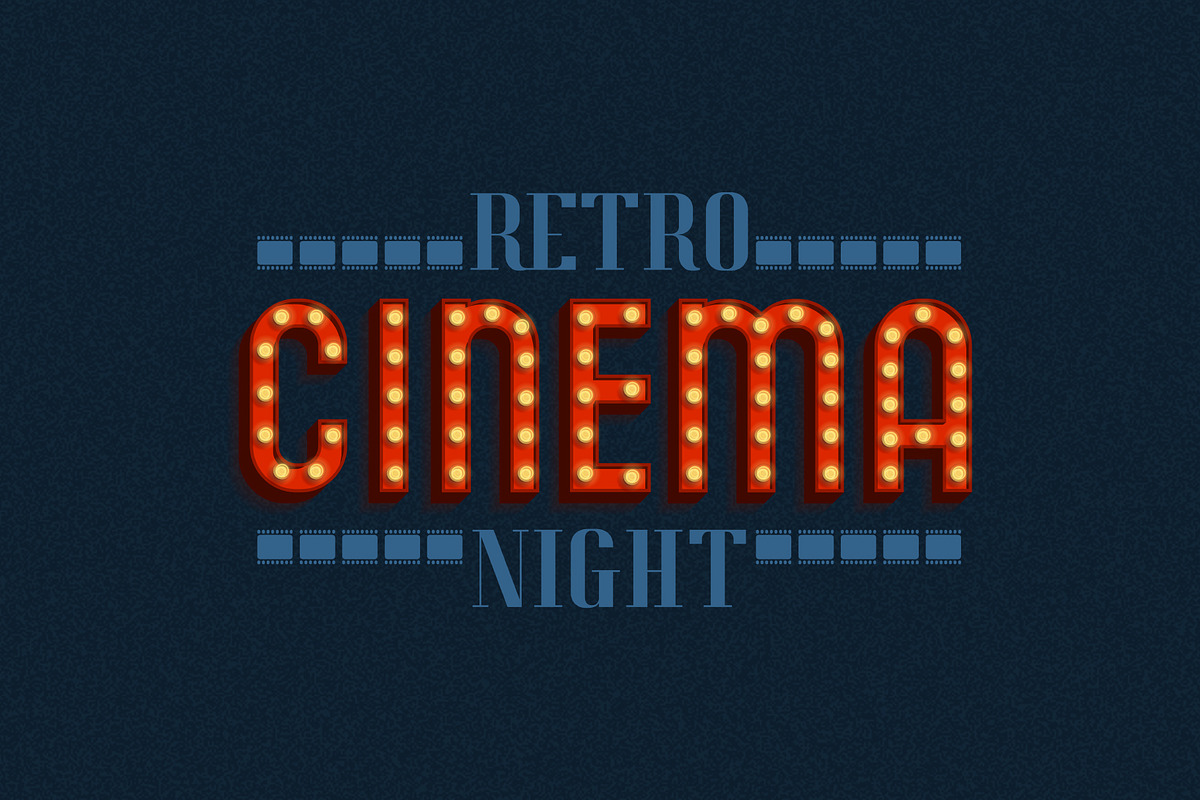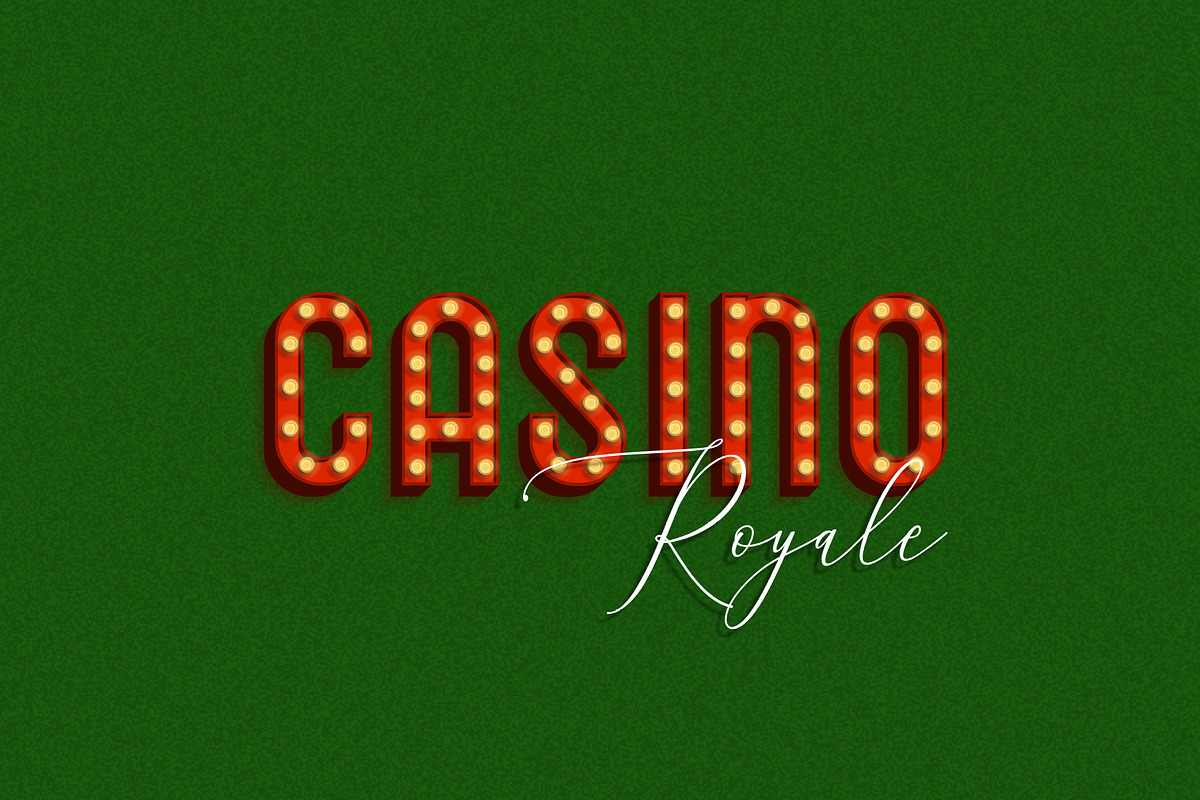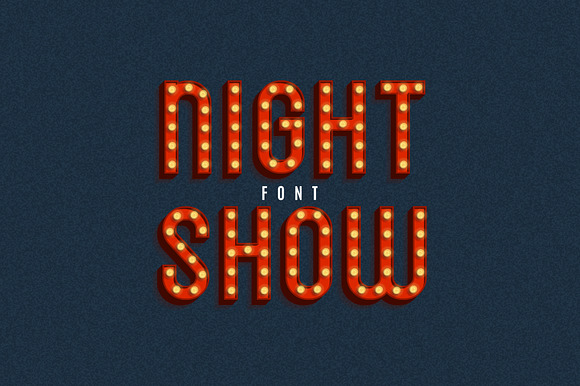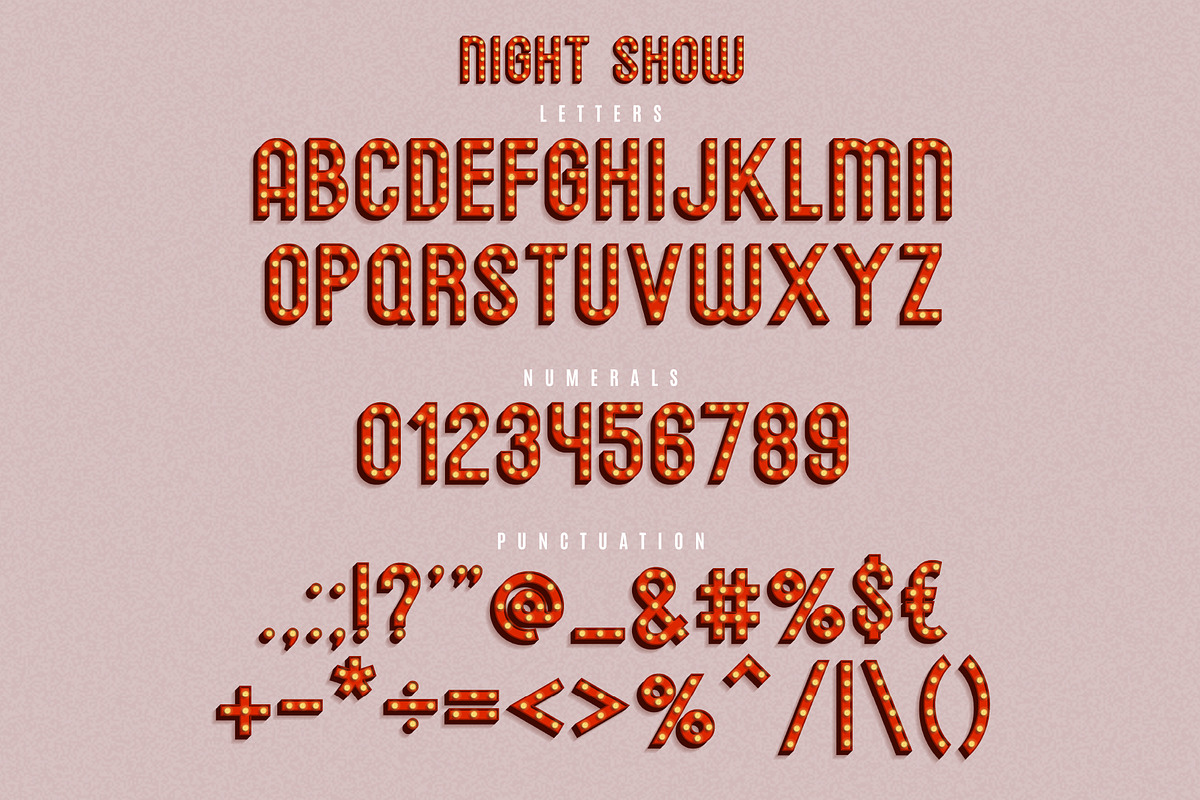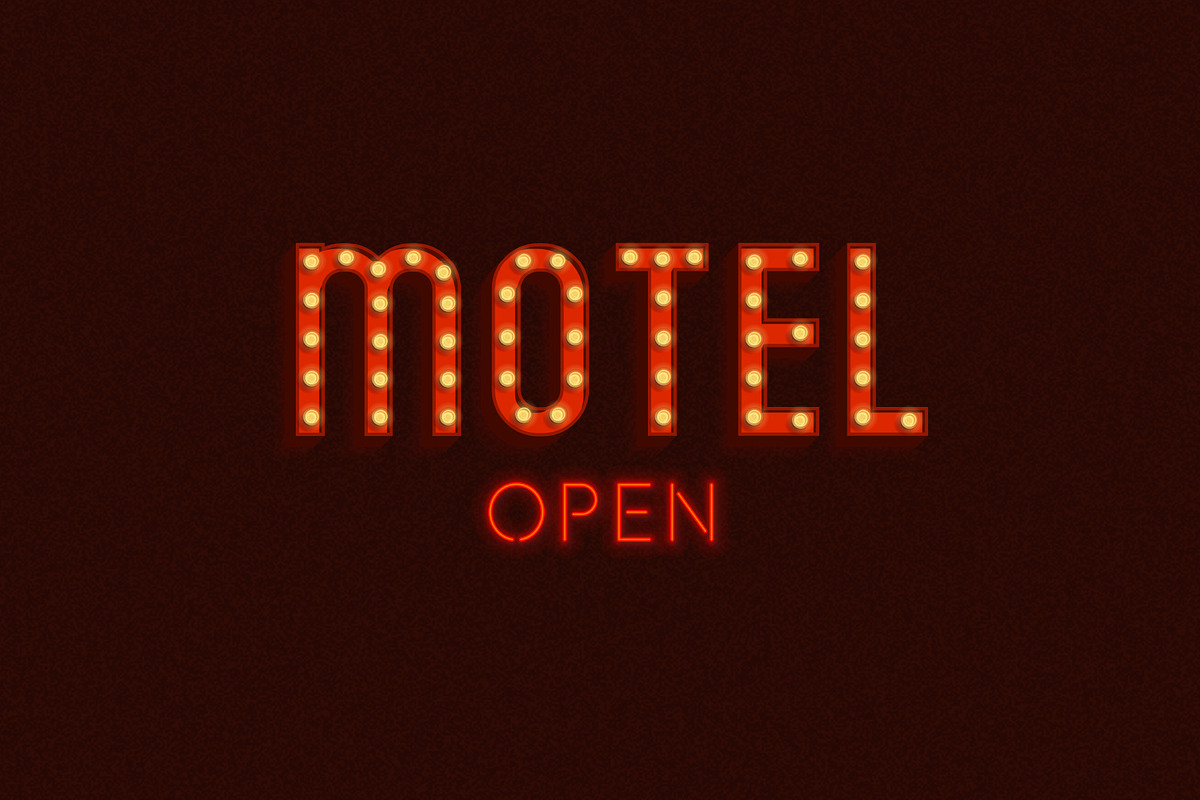
Night Show SVG Font
Hello! Introducing Night Show SVG Font - Color Font. It is OpenType SVG font which you can directly type as Red Retro Letters with Glowing Bulbs.
Each glyph has transparent shadows and transparent glowing bulbs for realistic light effect. This font is indispensable for retro billboards. Of course, you can use these fonts in other different projects.
Night Show SVG Font by Andrey Yaroslavtsev fits naturally into Branding, posters, packaging, typography.